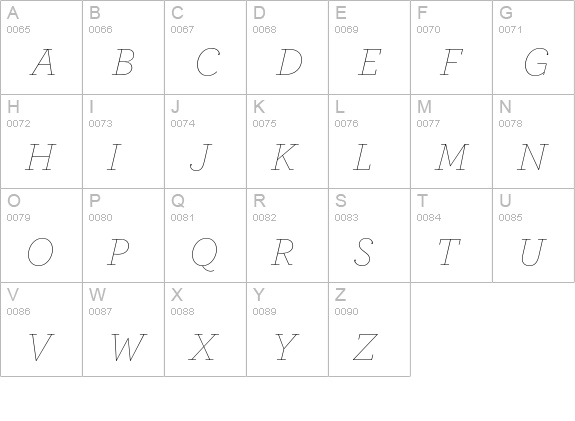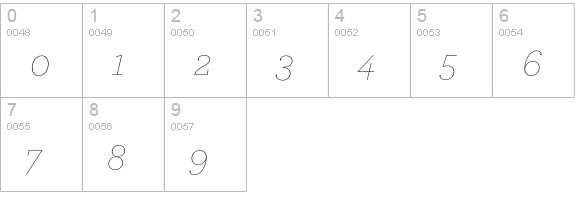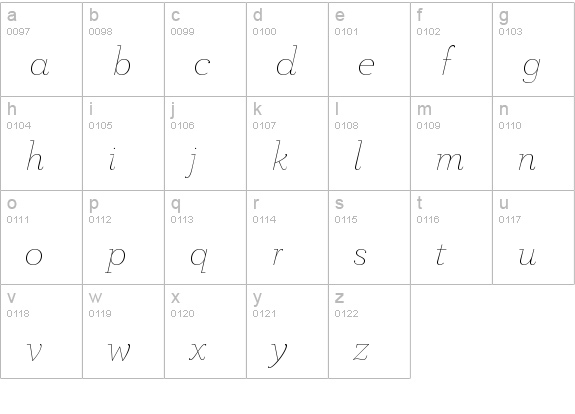
ArcherPro Thin Italic Font Details
ArcherPro Thin Italic is a delicate, low-contrast, italic variant in the ArcherPro typeface family \xE2\x80\x94 well suited to fashion editorial, minimal branding, and high-contrast display.
ArcherPro Thin Italic font is a sleek and elegant typeface that exudes sophistication and modernity. Its thin, slanted design adds a touch of style to any project, making it perfect for branding, editorial design, and more. The italicized characters give a sense of movement and flair, adding a dynamic element to your text. The best part? ArcherPro Thin Italic font is available for free download at FontsMarket.com. You can easily enhance your designs with this versatile and eye-catching font without breaking the bank. Whether you're working on a website, poster, or logo, ArcherPro Thin Italic font is sure to make a lasting impression. Download it now and elevate your design projects with this stunning typeface.